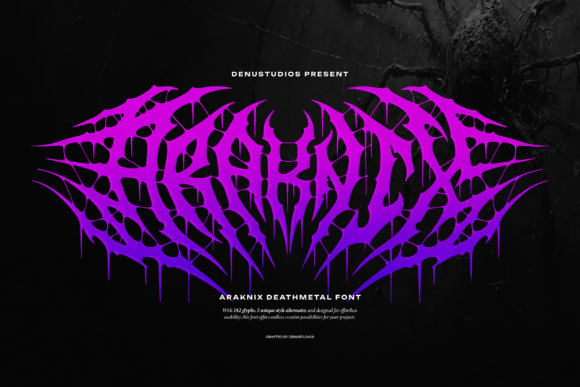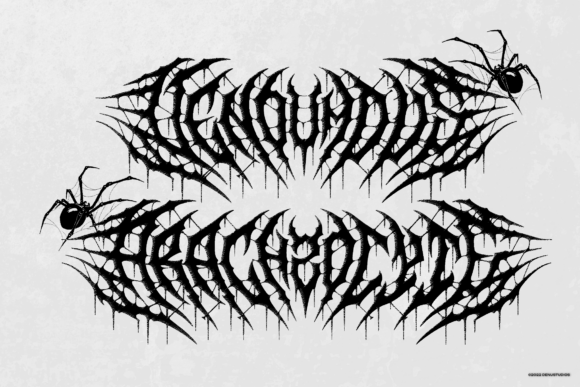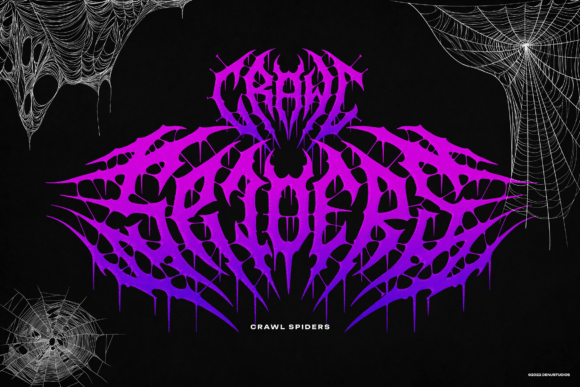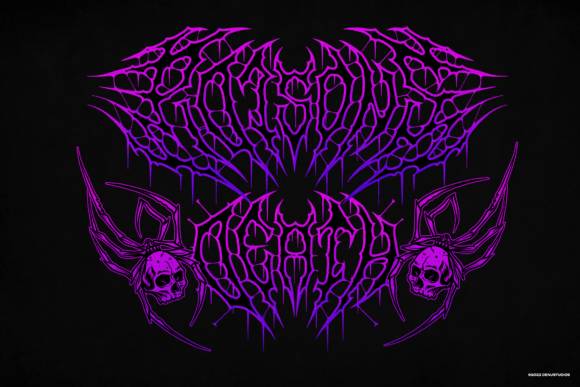
Araknix Font: A Sinister Display Font for Metal Logos & Horror Designs
About the Araknix Font
Explore the possibilities with Araknix Font, a font that offers both beauty and functionality. Araknix is a sinister, web-inspired death metal font that screams intensity and horror. With its chaotic, dripping forms and spiked texture, this font is perfect for band logos, underground music posters, metal album covers, and dark-themed merchandise. Packed with 182 glyphs and 5 style alternates, Araknix offers unlimited creative power for your heaviest projects.
Araknix excels in large-scale applications where its aggressive details are clearly visible: headlines, posters, and branding for extreme music or related products. Avoid using it for body text or UI elements; the intricate details would be illegible at smaller sizes and hinder readability.
Its chaotic energy pairs well with stark sans-serif fonts like Roboto Condensed for contrast, or a geometric sans-serif for a more controlled, modern feel. A simple serif like Merriweather can add a touch of classic horror to designs.
Araknix’s core personality is aggressively rebellious and sinister, making it ideal for projects that demand intense visual impact and a dark, edgy aesthetic.
Araknix Font Usage Examples
Araknix Font Example